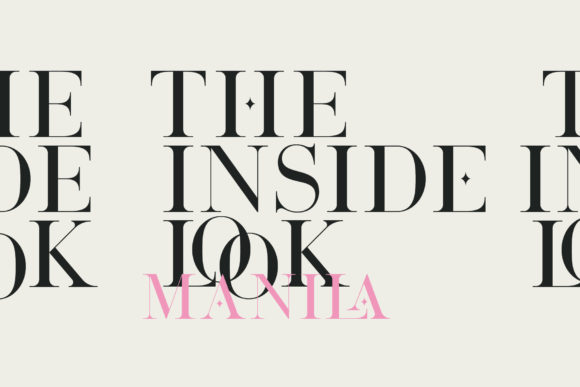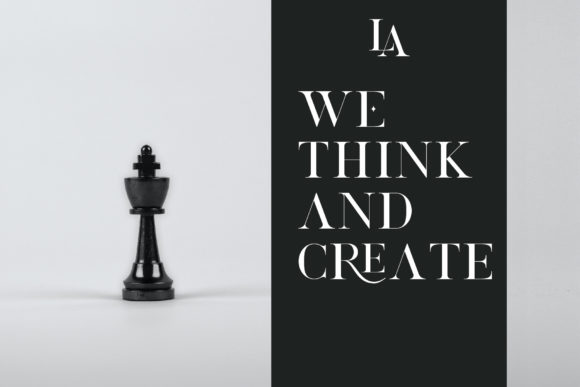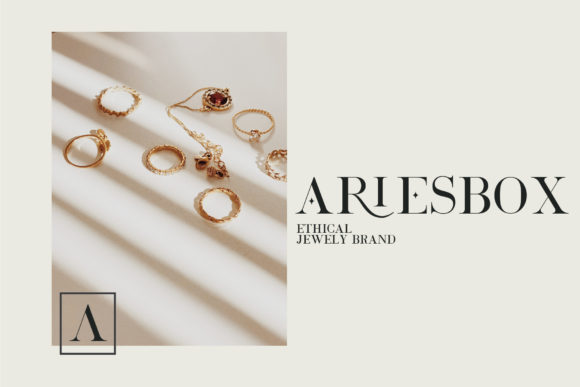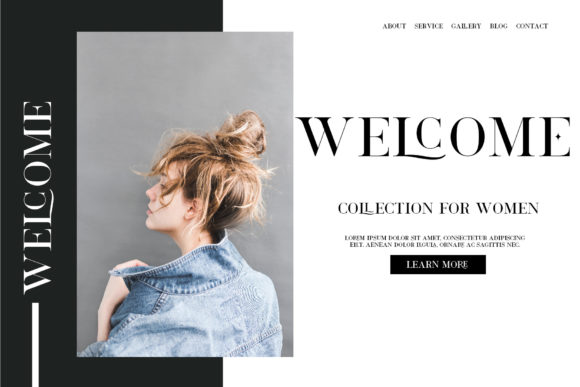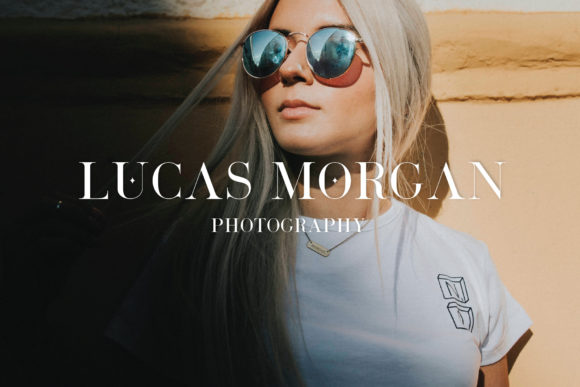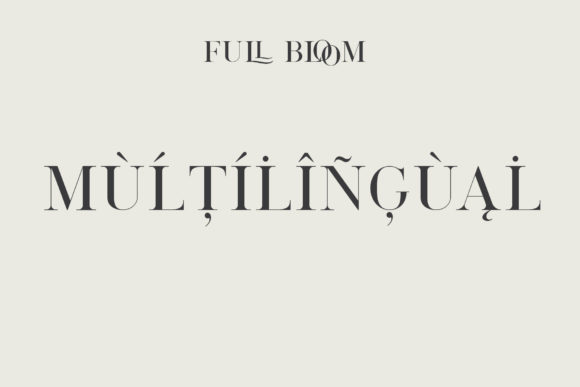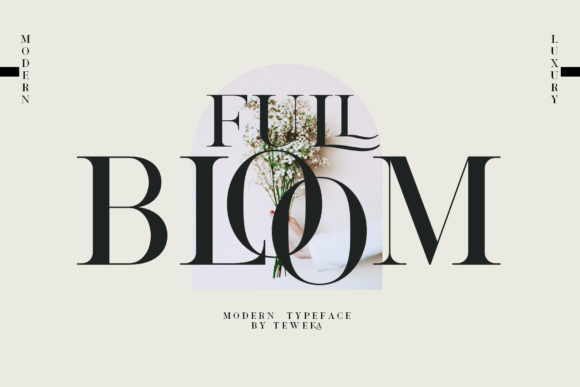
Introducing Full Bloom Font: Elevate Your Designs with a Bold and Genuine Serif
In the world of typography, a good font can make all the difference in the success of a design project. For designers and crafters, finding the perfect font that can elevate their creations and convey their message effectively is a constant quest. If you’re on the lookout for a versatile and impactful font, look no further than Full Bloom Font. This bold and genuine serif font is an incredibly valuable asset to any font library, capable of enhancing any creation with its unique charm and character.
The Characteristics of Full Bloom Font
Full Bloom Font stands out with its bold and genuine serif characteristics. The serif fonts are known for their classic and traditional look, making them a popular choice for designs that require a touch of elegance and sophistication. Full Bloom takes these characteristics to the next level with its bold presence, making it perfect for headings, titles, and any design element that needs to stand out.
One of the key features of Full Bloom Font is its versatility. No matter the topic or industry, this font can adapt and complement the design seamlessly. Whether you’re working on a project for a luxury brand, a creative startup, or a personal blog, Full Bloom Font can add a level of professionalism and style that elevates your work.
Why Choose Full Bloom Font?
There are several reasons why Full Bloom Font should be a part of your font library:
- Versatility: Its adaptability across various topics and industries makes it a go-to font for a wide range of projects.
- Elegance and Sophistication: The serif design adds a touch of class and tradition, perfect for designs that require a level of formality.
- Impact: The bold nature of the font ensures that your message grabs attention and leaves a lasting impression.
- Legibility: Despite its boldness, Full Bloom Font maintains high legibility, making it suitable for both digital and print designs.
Using Full Bloom Font in Your Designs
Incorporating Full Bloom Font into your designs is straightforward. Here are some tips to make the most out of this versatile font:
- Headings and Titles: Use Full Bloom Font for headings and titles to create a strong first impression.
- Branding: Consider using Full Bloom Font in your branding materials to add a touch of elegance and professionalism.
- Digital and Print: Whether you’re designing for digital platforms or print, Full Bloom Font’s legibility and impact make it an excellent choice.
- Pairing: Experiment with pairing Full Bloom Font with other fonts to create a unique and harmonious design. Its bold serif nature pairs well with sans-serif fonts for a balanced look.
Full Bloom Font is more than just a font; it’s a design asset that can elevate your creations to new heights. Its bold and genuine serif characteristics make it versatile, elegant, and impactful. Whether you’re a designer, crafter, or DIY enthusiast, adding Full Bloom Font to your library can enhance your designs and help you achieve your creative goals. With its wide range of applications and benefits, Full Bloom Font is sure to become a favorite in your collection.